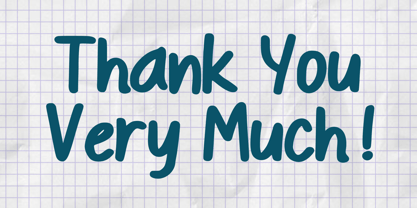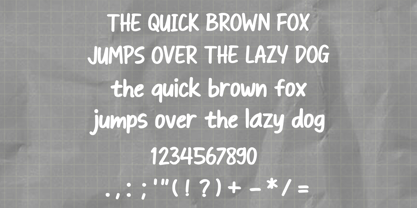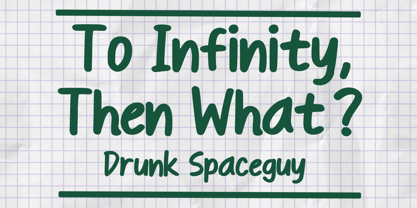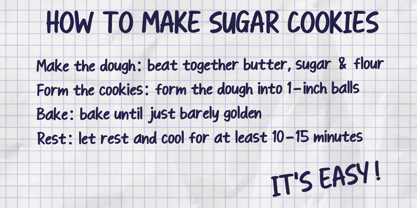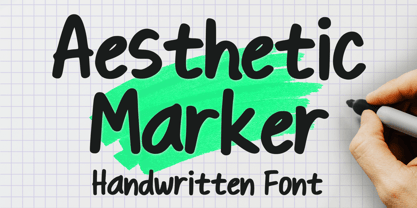
Aesthetic Marker
by Mvmet
The Aesthetic Marker Font Family was designed by Gabriel Valentinus and published by Mvmet. Aesthetic Marker contains 1 styles. More about this family
Immerse yourself in the creative allure of Aesthetic Marker, a uniquely hand-lettered marker font. Its natural vibe is bound to amplify an array of design projects to an unprecedented altitude. Aesthetic Marker is your go-to choice for an array of innovative design opportunities – whether it's captivating stickers, t-shirt designs, breathtaking logo creation, enthralling magazine or book covers, or whimsical cartoon illustrations. Elevate the enchantment of your designs with the refreshingly cool effect of the Aesthetic Marker font.
Designers: Gabriel Valentinus
Foundry: Mvmet